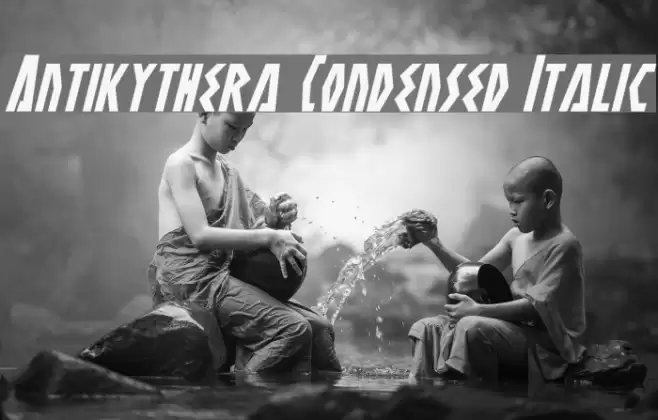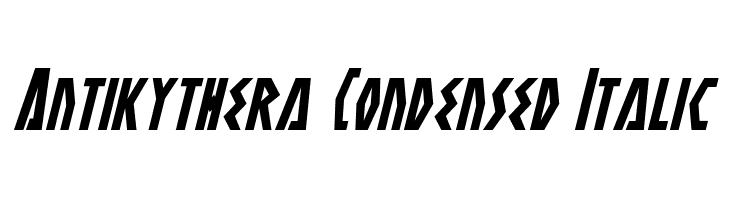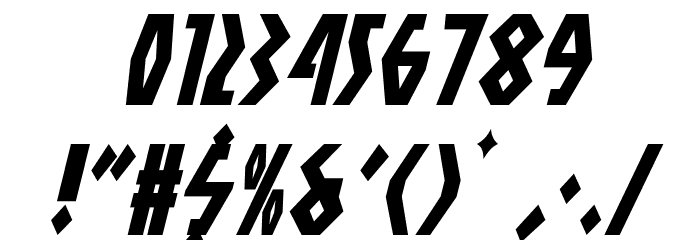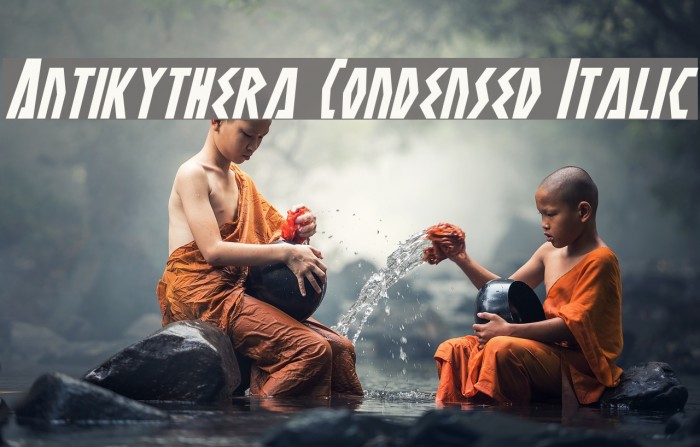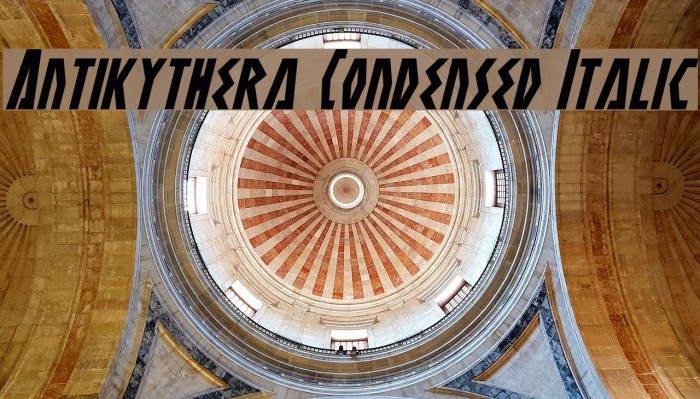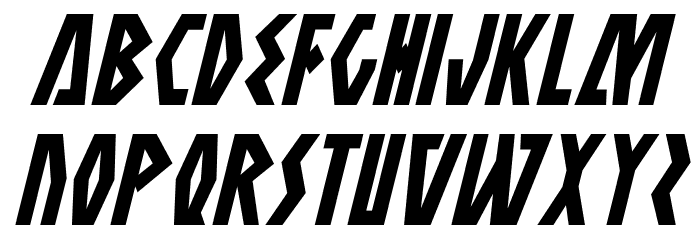
Antikythera Condensed Italic Font
Antikythera Condensed Italic Description
This font features a bold and dynamic design with a condensed and italicized style. The characters are sharply angled, giving a sense of movement and energy. The uppercase letters are particularly striking with their elongated forms and sharp edges. The lowercase letters maintain the same angular aesthetic, creating a cohesive look across the alphabet. Numbers and special characters follow the same design principles, ensuring consistency throughout. The overall appearance is modern and edgy, making it suitable for projects that require a strong visual impact.
A bold, condensed, and italicized font with sharp angles and a modern aesthetic from Uncategorized fonts.
- Proposed Projects: Ideal for branding, posters, and headlines where a bold statement is needed.